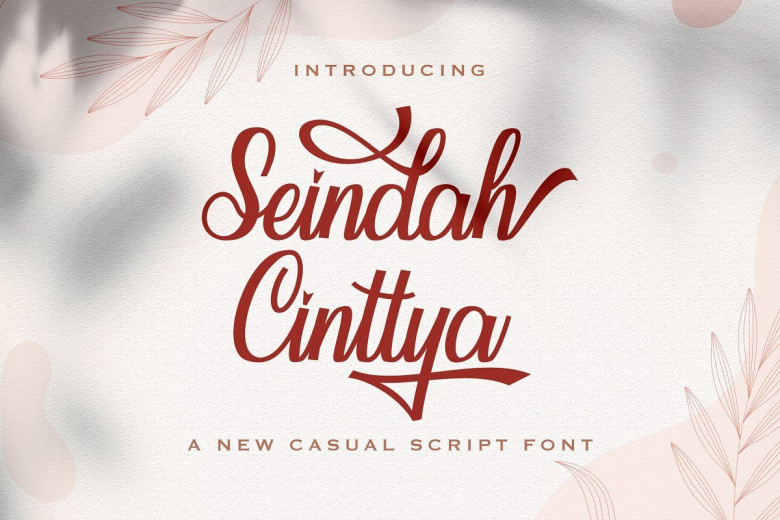
Seindah Cinttya Casual Script Font
Introducing Seindah Cinttya Casual Script Font – a modern calligraphy typeface that features a varying baseline, smooth line, classic and elegant touch. Can be used for various purposes.such as headings, signature, logos, wedding invitation, t-shirt, letterhead, signage, lable, news, posters, badges etc.